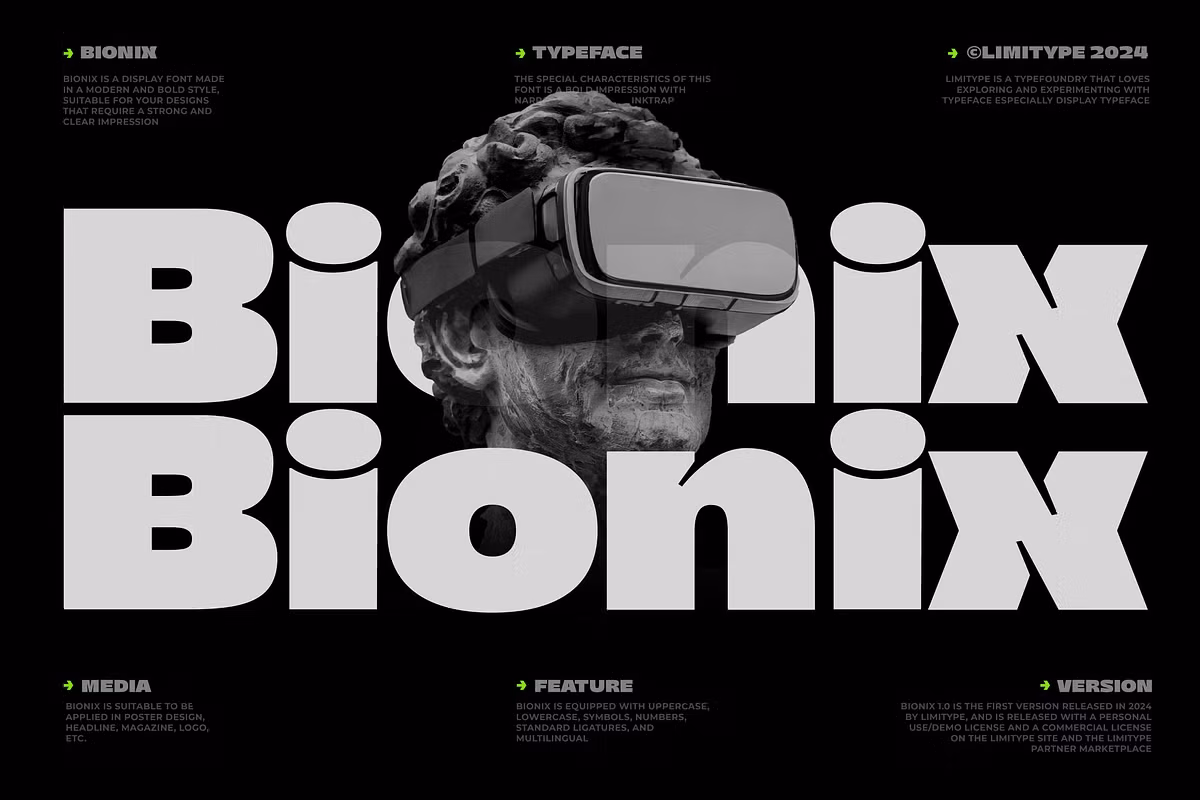
Bionix Futuristic Bold Font Free Download is a sans display typeface designed to make a bold and modern impression. Equipped with inktraps that add personality, Bionix is ideal for designs requiring a strong and clear presence, such as headlines, posters, banners, and logos.
Designed by Limitype, Bionix includes uppercase and lowercase letters, numbers, symbols, standard ligatures, and multilingual support. The font package provides OTF, TTF, WOFF, and WOFF2 formats, ensuring compatibility across various platforms and applications.